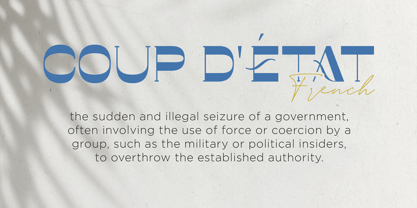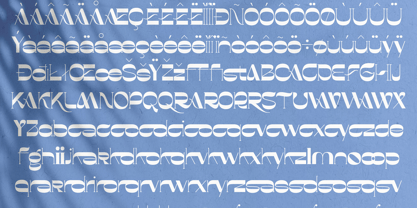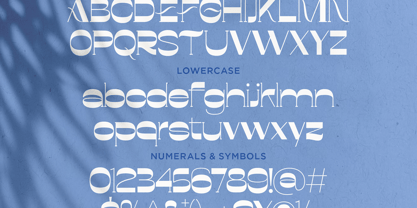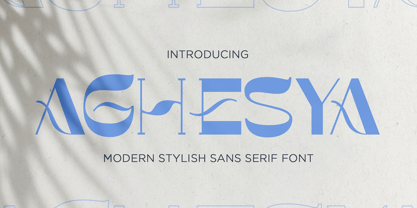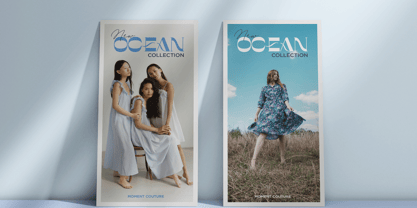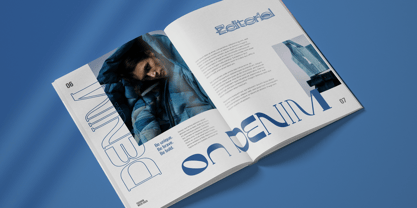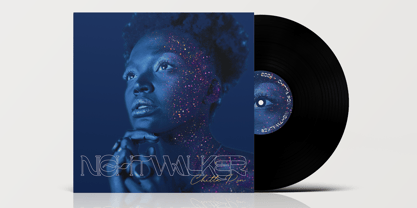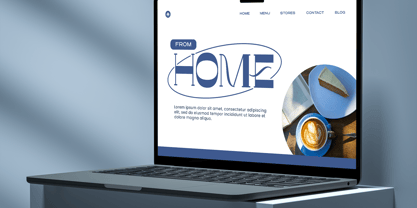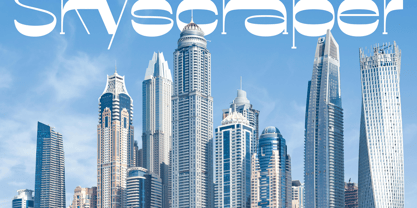
Aghesya
by Krafted
The Aghesya Font Family was designed by Heri Imanudin and published by Krafted. Aghesya contains 1 styles. More about this family
Transform your brand’s visual identity with this modern, stylish font. Designed with sleek, streamlined characters, it brings a contemporary, professional, and understated look to every project. Perfect for logos, branding materials, packaging, websites, social media graphics, and any design that needs a polished, memorable touch. Its versatile letterforms ensure clarity and readability across sizes, while subtle curves and balanced spacing create a harmonious, elegant flow. Ideal for designers, creatives, and brands seeking to make a lasting impression, this font combines aesthetic appeal with practical functionality, making your projects feel cohesive, modern, and thoughtfully crafted.